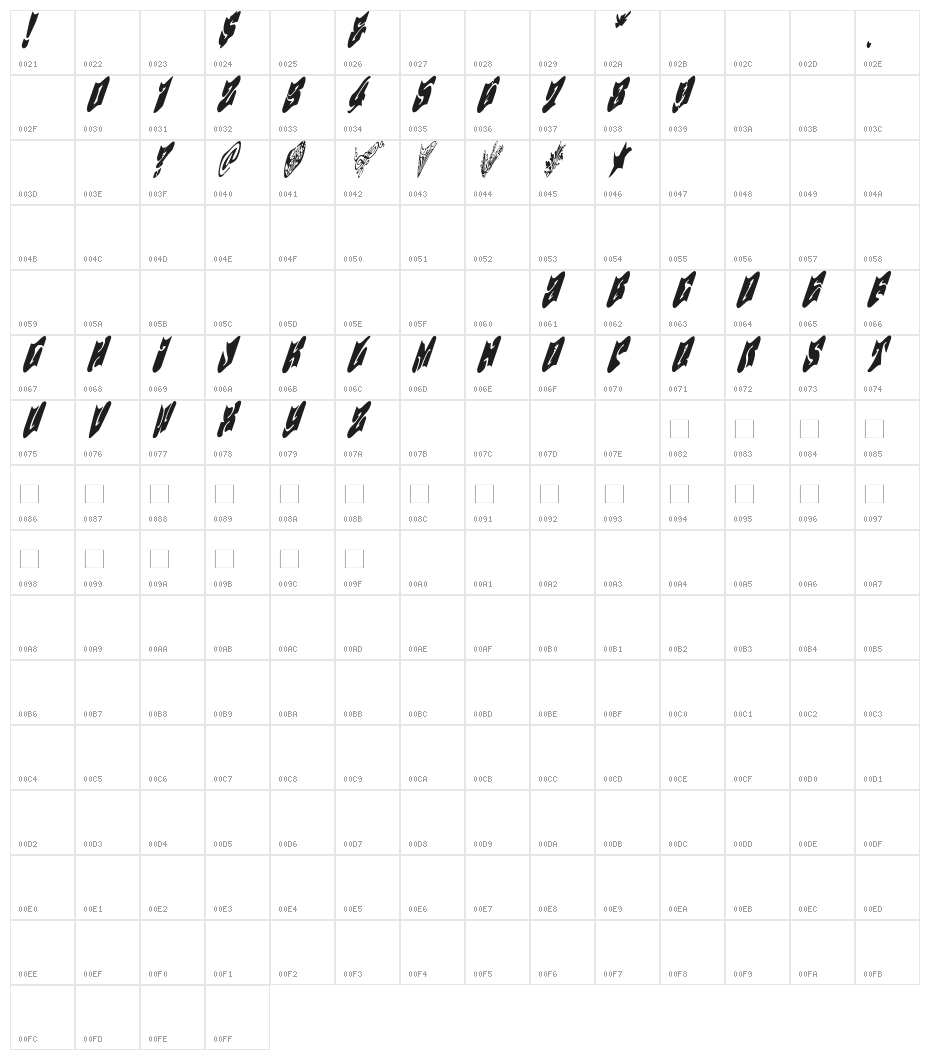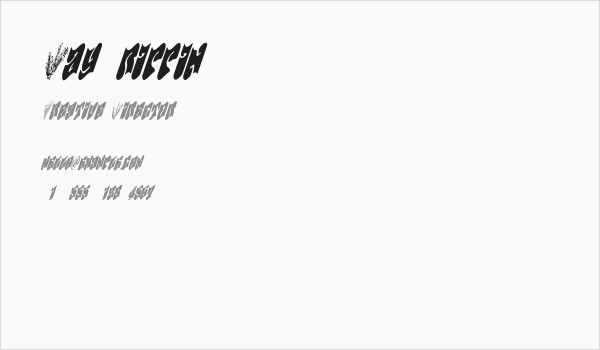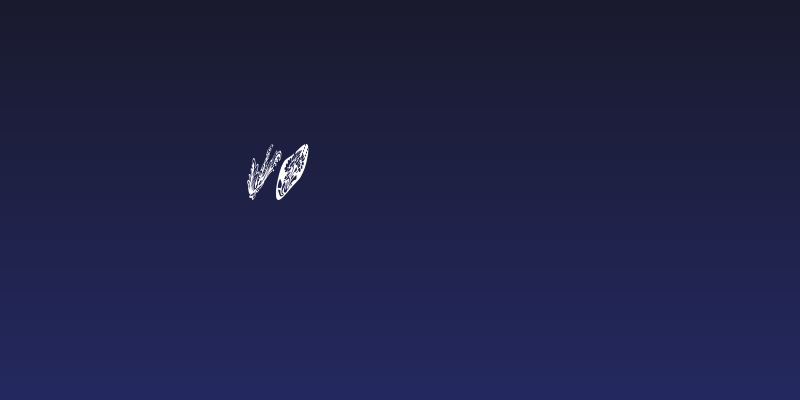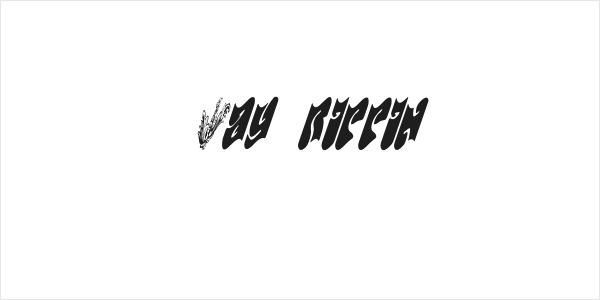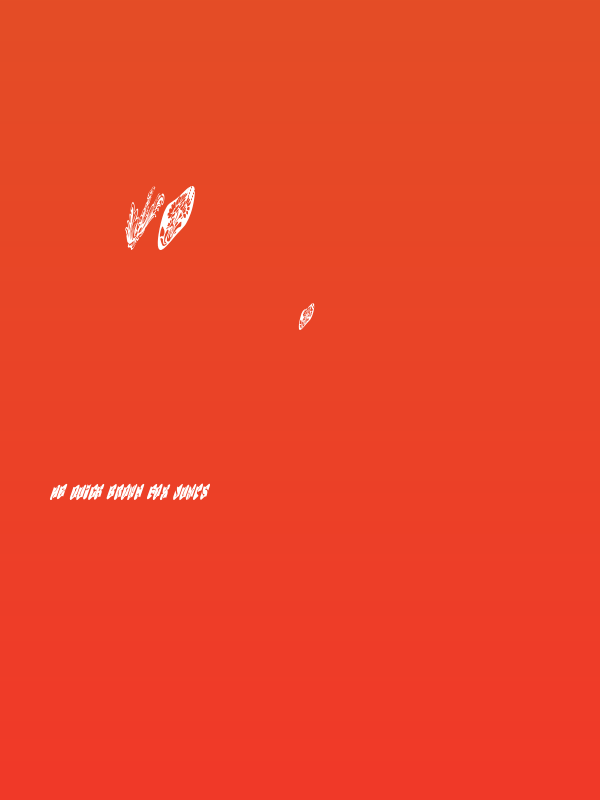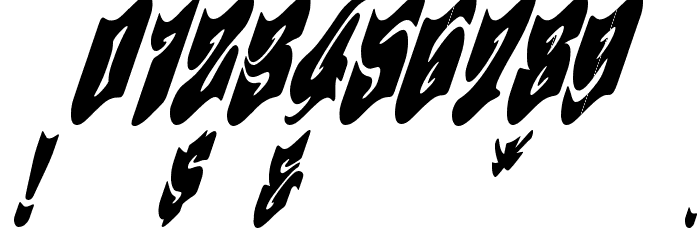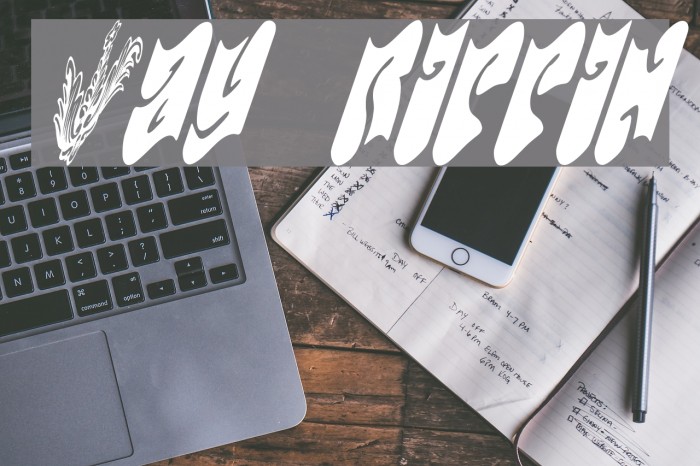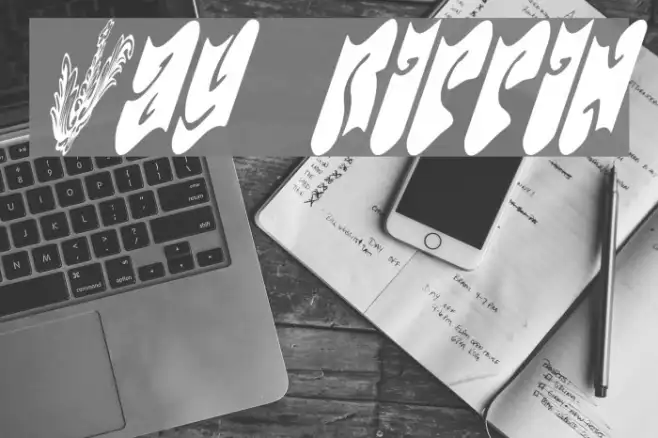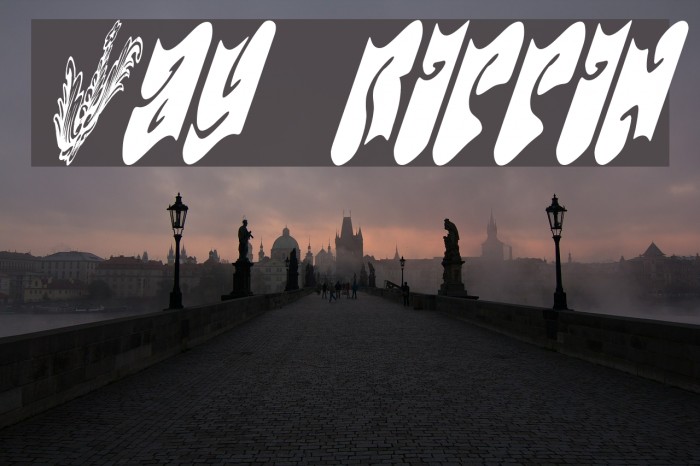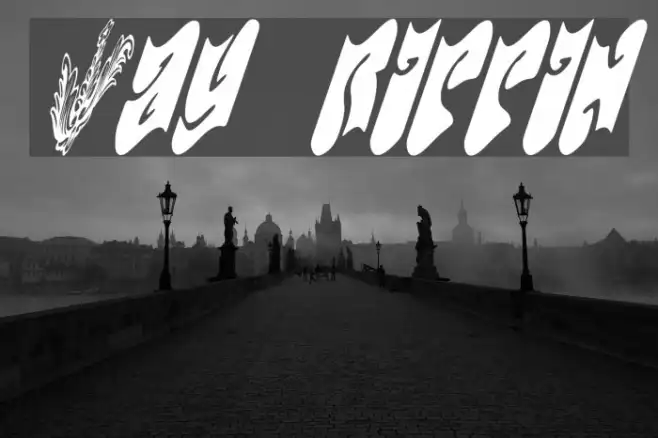
DayTrippin Font
DayTrippin Description
This font features a bold, dynamic style with a strong slant, giving it a sense of movement and energy. The characters are thick and heavily stylized, with sharp angles and a graffiti-like appearance. The uppercase and lowercase letters maintain a consistent style, with exaggerated curves and pointed edges. The numbers and special characters follow the same bold and expressive design, making the font highly distinctive and eye-catching. Its unique style is reminiscent of street art and urban culture, making it suitable for projects that require a bold and unconventional look.
| Overall Style | Modern, Urban |
| Use Case | Logos, Posters, Headlines |
| Proposed Projects | Ideal for street art-inspired designs, music album covers, posters, and branding that seeks a bold, urban aesthetic. |